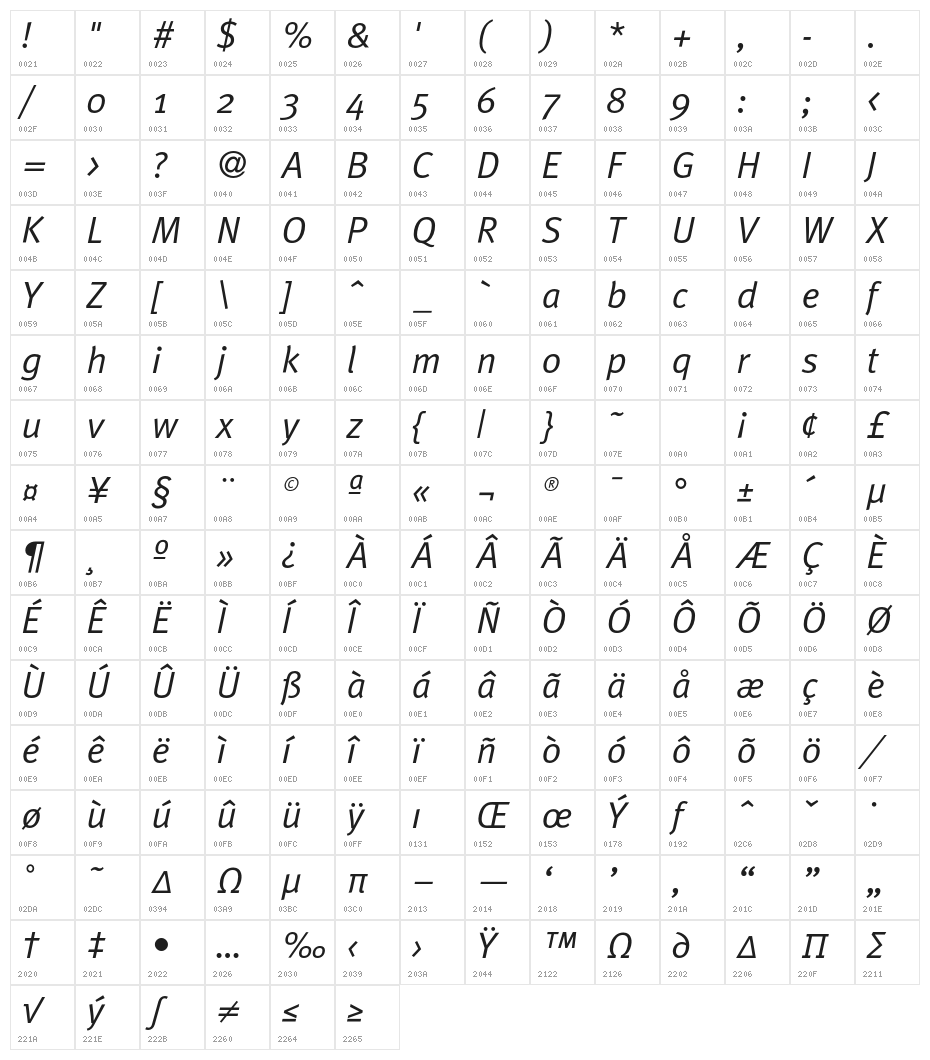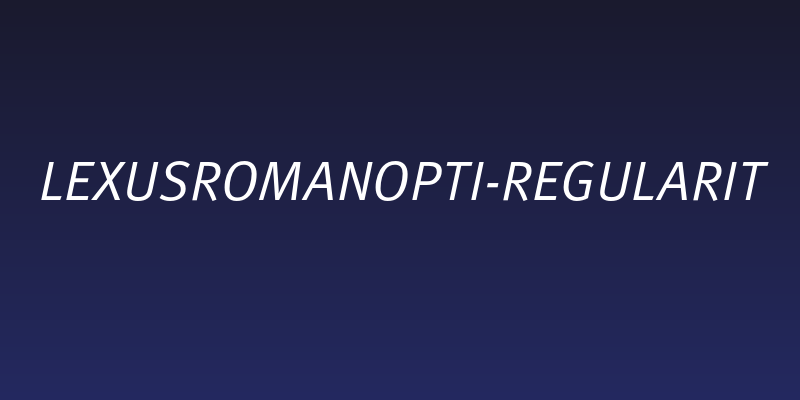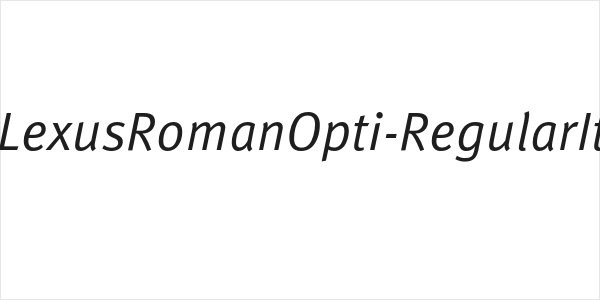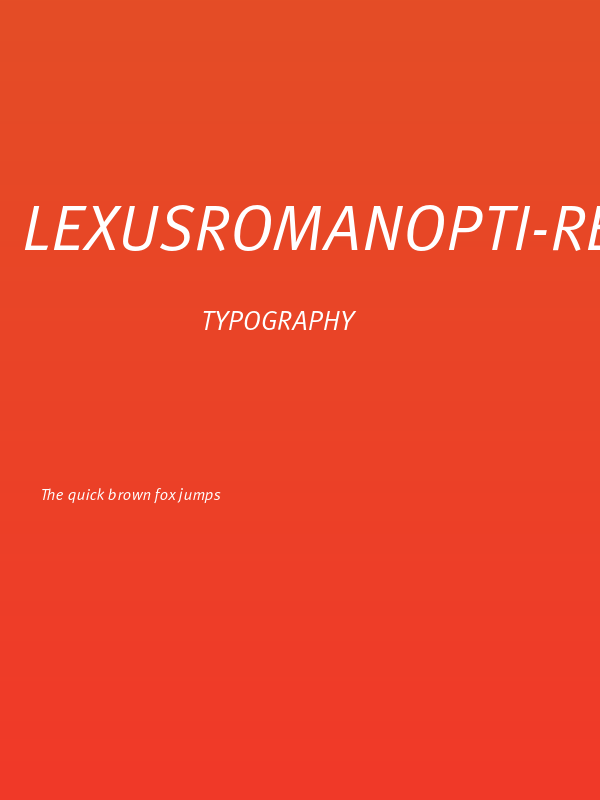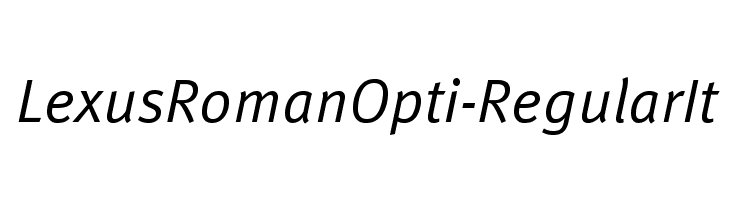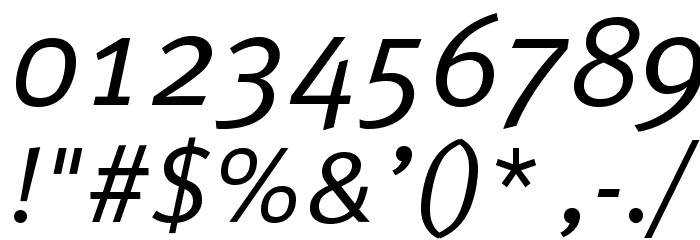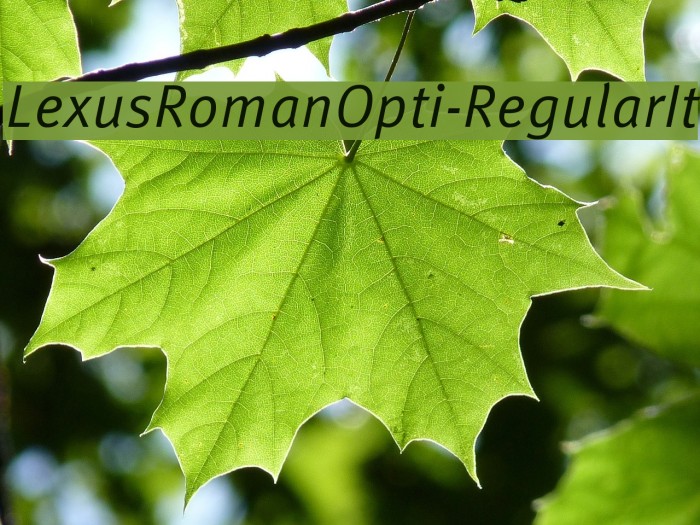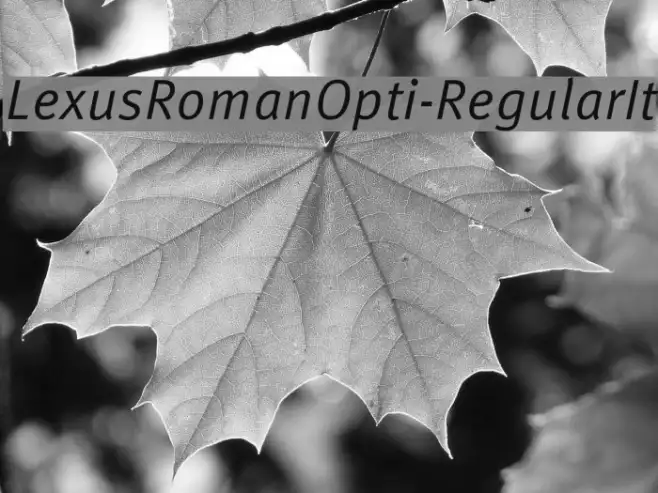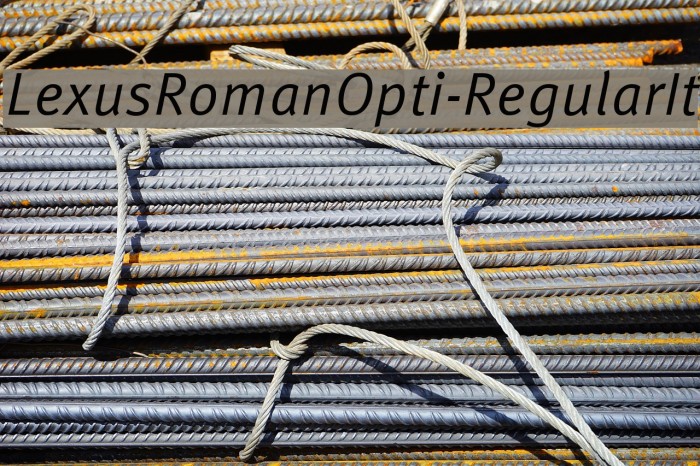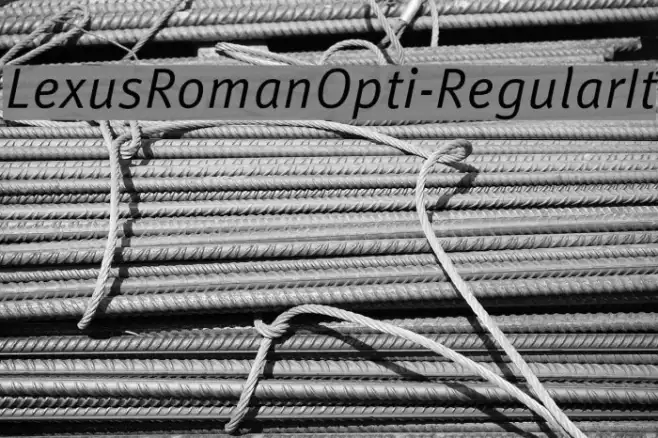
LexusRomanOpti-RegularIt Font
LexusRomanOpti-RegularIt Description
This typeface presents a sleek and modern appearance with a slight italic slant, adding a dynamic and elegant touch to the characters. The letterforms are clean and well-defined, featuring smooth curves and sharp edges that enhance readability. The font maintains a consistent stroke width, providing a uniform and balanced look across all characters. Its design is versatile, making it suitable for various applications where a contemporary and professional aesthetic is desired. The numerals and special characters are crafted with the same attention to detail, ensuring coherence throughout the typeface.
| Use Case | Headlines, Body text, Logos |
| Proposed Projects | Ideal for branding, editorial design, advertising, and digital interfaces where a modern and professional look is required. |